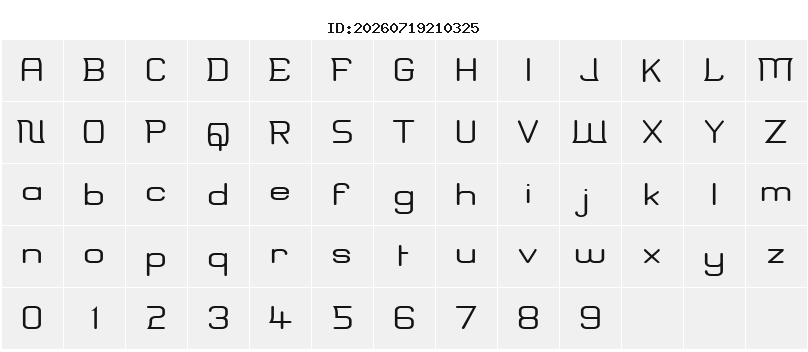
• Font Name: Erinal Wide
• Font ID: Erinal Wide
• Full Font Name: Erinal Wide
• PostScript Name: ErinalWide
• Character Count: 303
• Designer: Graham Meade
About Erinal Wide.ttf
Erinal Wide.ttf is a modern, elegant sans-serif font designed for ultimate readability and visual harmony. Perfect for branding, headlines, web design, and print materials.